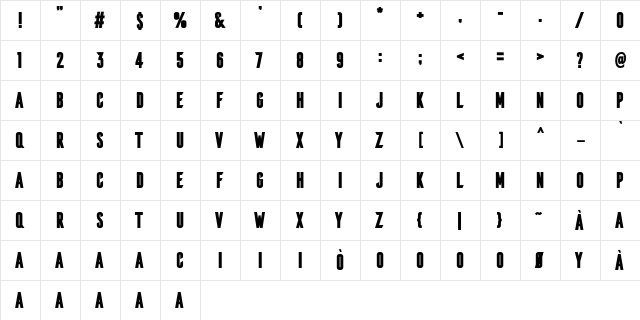
Brandbe Demo Bold
| Foundry | Roman Polishchuk |
| Designer | Roman Polishchuk |
Design Context for Brandbe Demo Typeface
Brandbe Demo takes a measured approach to typography — its balanced proportions and neutral character make it a reliable workhorse for both digital and print work. Its bold stroke weight gives it real presence on the page.